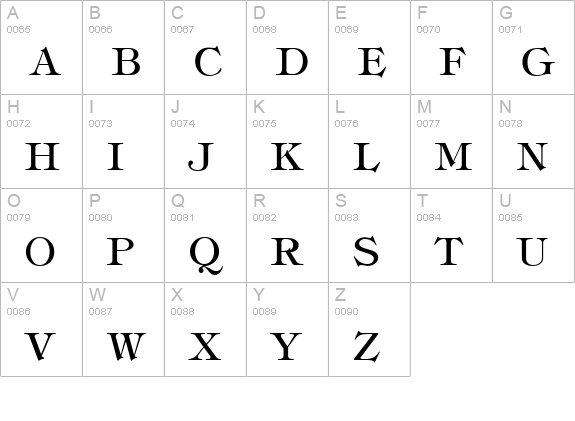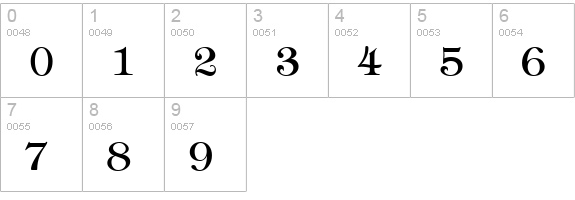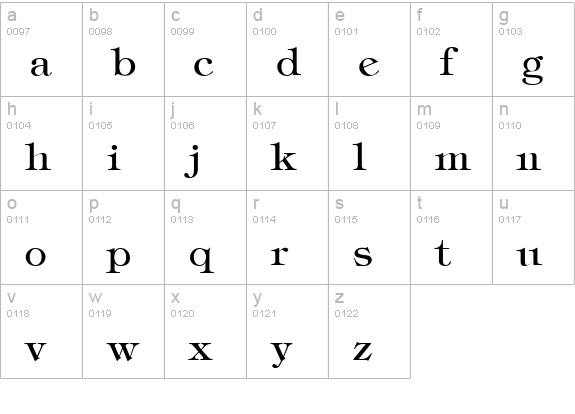
Timbrel Regular is the standard, neutral variant in the Timbrel typeface family \xE2\x80\x94 well suited to general body text, paragraphs, and standard typographic work.
Timbrel Regular is a captivating and versatile font that effortlessly blends modernity with a touch of classic elegance. This font is perfect for adding a sophisticated and refined look to any design project. With its clean lines and balanced letterforms, Timbrel Regular exudes a sense of professionalism and style. The beauty of Timbrel Regular lies in its versatility. Whether you're designing a logo, creating a stunning website, or crafting eye-catching marketing materials, this font will bring your vision to life. Its sleek and legible characters ensure readability across various mediums and sizes, making it a reliable choice for any project. One of the most remarkable features of Timbrel Regular is its ability to convey a sense of timelessness. Its classic design elements are seamlessly combined with a modern twist, making it perfect for both vintage-inspired designs and contemporary aesthetics. What's even more exciting is that Timbrel Regular is available for free download at FontsMarket.com. Yes, you read that right - this exceptional font can be yours without spending a single penny. FontsMarket.com is your go-to destination for high-quality fonts, and Timbrel Regular is just one of the many incredible options they offer. So, whether you're a graphic designer, a creative professional, or simply someone who appreciates the beauty of typography, Timbrel Regular is a must-have font in your collection. Its versatility, elegance, and the fact that it is freely available for download at FontsMarket.com, make it an invaluable asset for all your design projects. Don't miss the chance to elevate your creations with this extraordinary font.